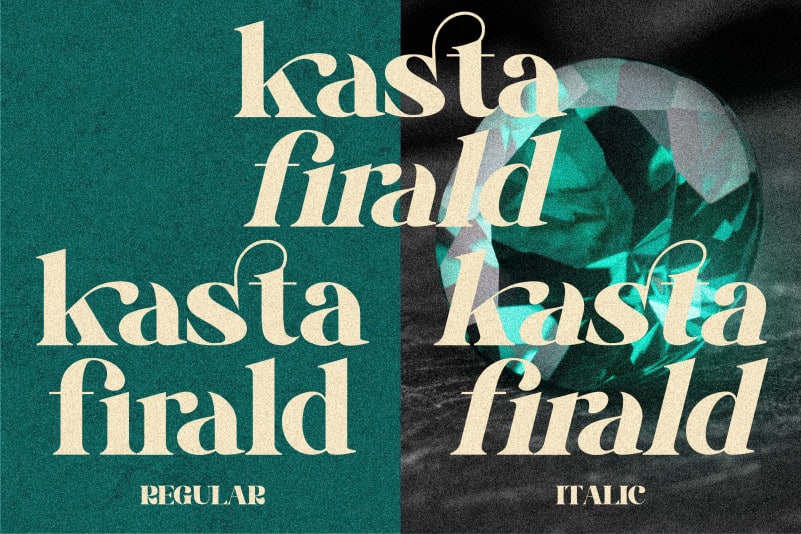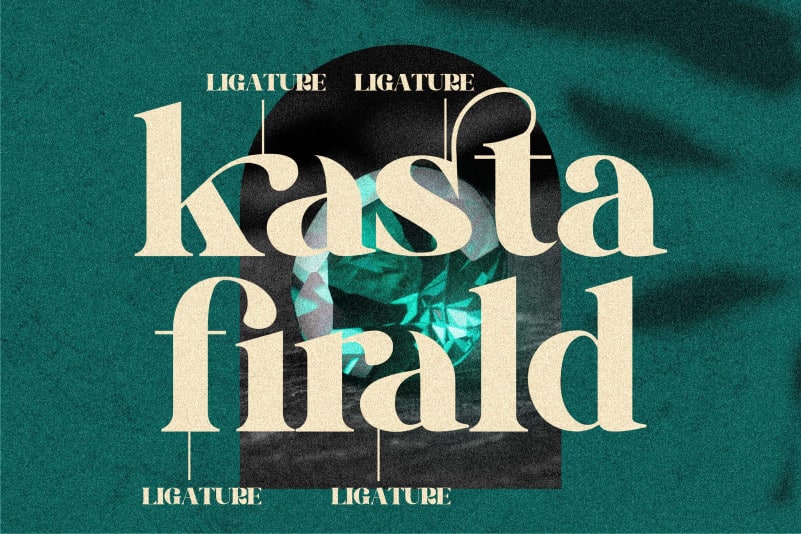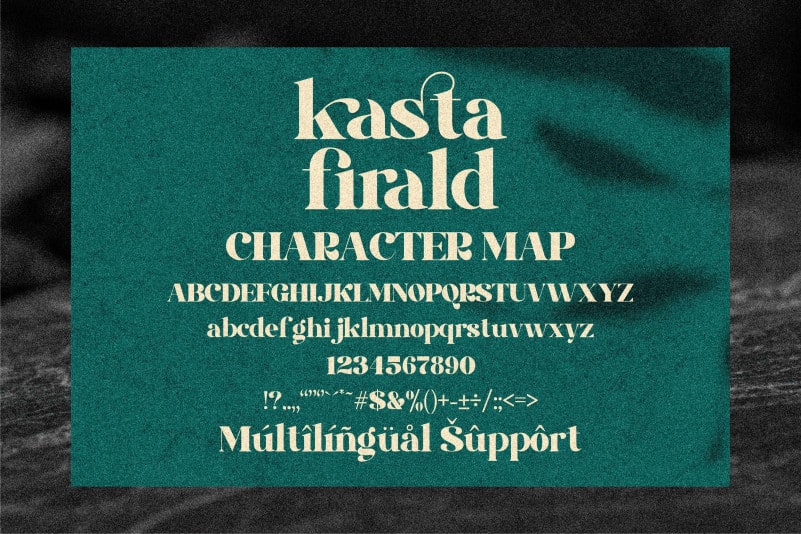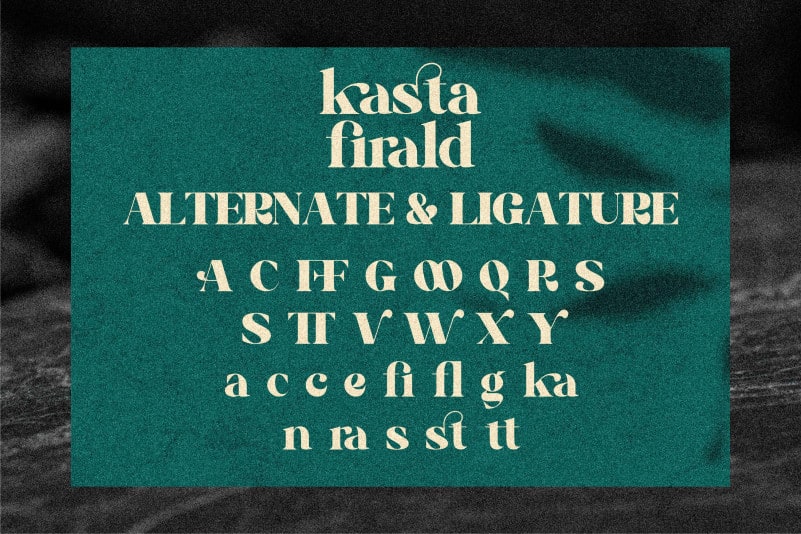
Kasta Firald Serif Font
Kasta Firald Serif Font is a bold and luxurious serif font. This font is suitable for a wide variety of projects such as: logos, branding projects, homeware designs, product packaging, mugs, quotes, posters, shopping bags, t-shirts, book covers, name card, invitation cards, greeting cards, label, photography, watermark, special events, and all your other luxury and beautiful projects.